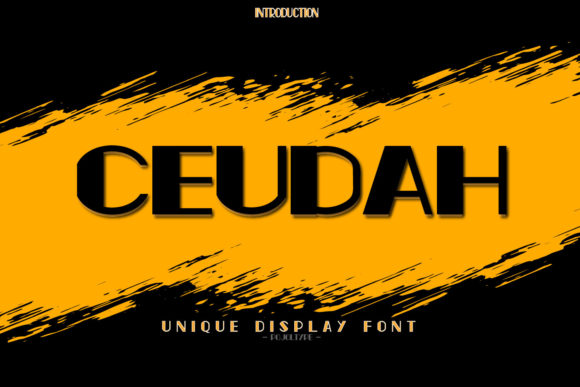
**Step into the World of Elegance and Boldness: Introducing Ceudah Font, the Epitome of Cinematic Charm**
In the realm of typography, Ceudah Font stands tall as a masterpiece, a testament to the power of visual allure. This captivating display font exudes an air of sophistication and boldness, leaving an indelible mark on your creative ventures. Allow yourself to be swept away by its irresistible charm as you delve into a world of endless possibilities.
**Cinematic Elegance at Your Fingertips**
Ceudah Font is the ultimate choice for those seeking to infuse their designs with a touch of cinematic grandeur. Its sweeping lines and distinctive curves evoke a sense of drama and intrigue, reminiscent of iconic movie titles and captivating posters. Unleash your creativity and let Ceudah Font transport your audience to a world of cinematic magic.
**A Versatile Gem for Your Design Arsenal**
With its remarkable versatility, Ceudah Font transcends the boundaries of genre and style. Whether you're crafting elegant invitations, designing eye-catching social media posts, or creating stunning stationary art, Ceudah Font seamlessly adapts to your vision. Its boundless potential knows no limits, allowing you to weave a tapestry of visual wonders.
**Artistic Expression at Its Finest**
Ceudah Font is an artist's dream, a tool that empowers you to paint with words and captivate your audience with every stroke. Its bold and confident presence demands attention, transforming ordinary text into captivating statements that resonate with emotion and impact. Unleash your inner artist and let Ceudah Font guide you towards design greatness.